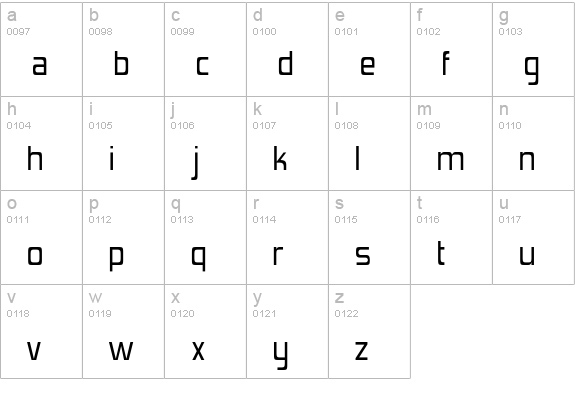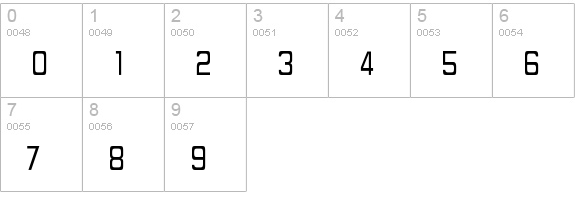
ForgottenFuturist Font Details
ForgottenFuturist font is a unique and innovative typeface that seamlessly blends elements of futurism with a touch of nostalgia. Its sleek lines and geometric shapes evoke a sense of forward-thinking creativity, while its subtle vintage influences add a hint of retro charm. This versatile font is perfect for a wide range of design projects, from modern logos and branding to futuristic posters and digital artwork. What makes ForgottenFuturist font even more appealing is that it is completely free to download at FontsMarket.com. This means that you can easily access this striking typeface and incorporate it into your designs without any cost. Don't miss out on the opportunity to add a touch of futuristic flair to your projects with the ForgottenFuturist font – download it today and let your creativity soar!